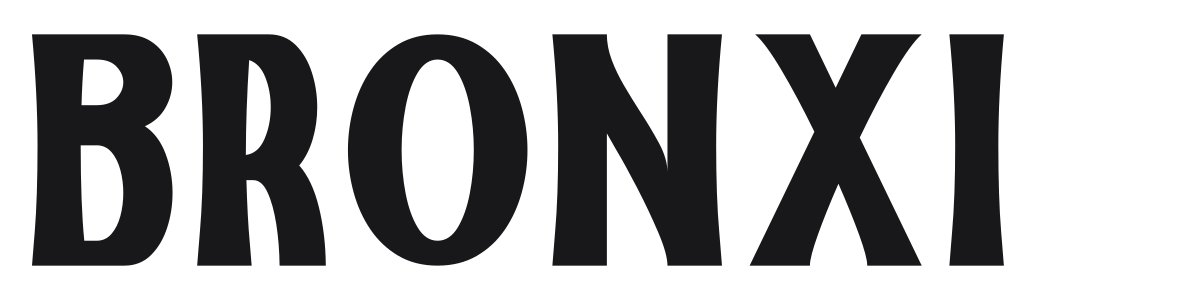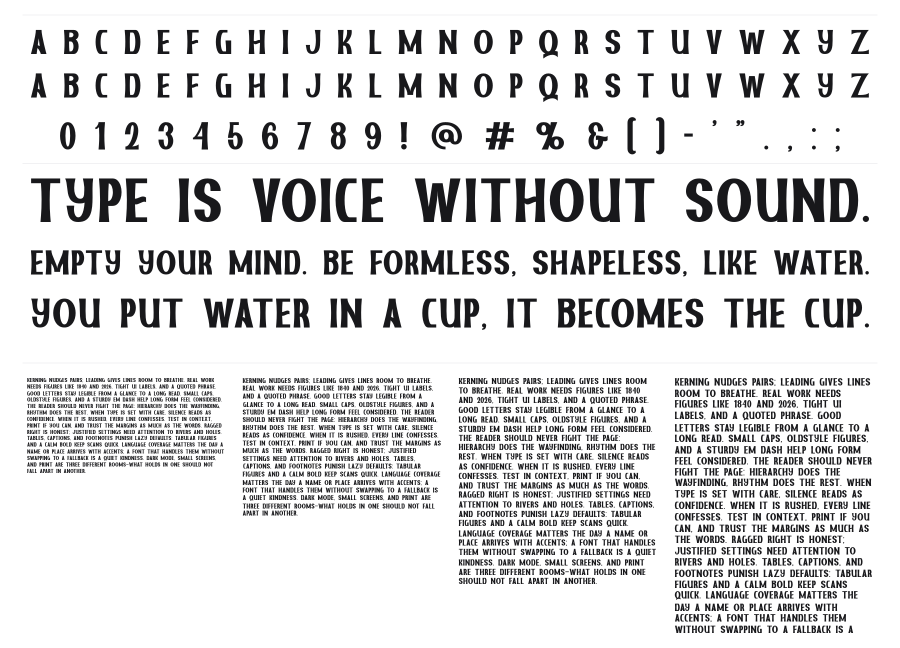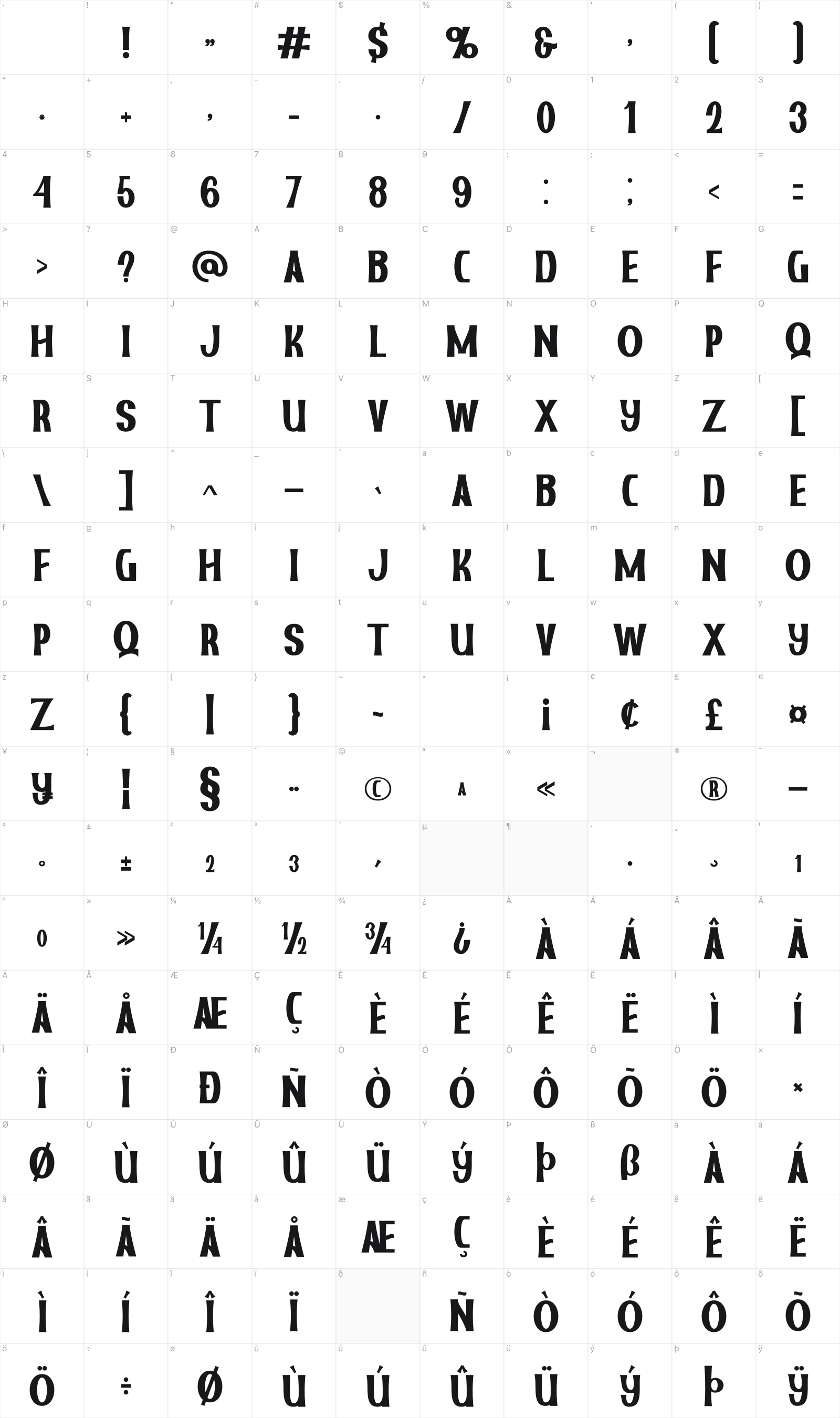
Bronxi
Bronxi is a bold condensed serif with angular wedge serifs and sharp stroke contrast that give it a raw, urban character. It draws on Art Deco proportions but pushes them toward something grittier and more contemporary. Strong choice for posters, album covers, and brand identities that need presence without refinement.